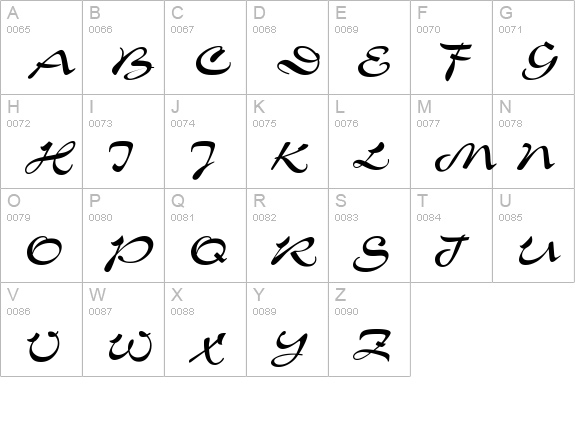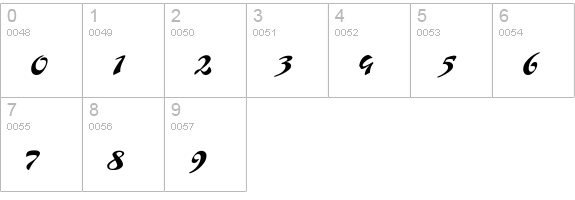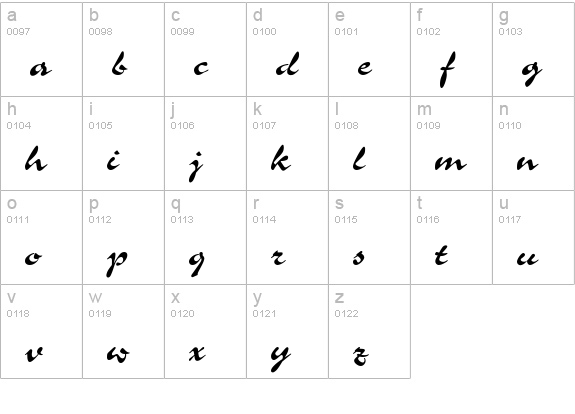
Corrida Font Details
Corrida font is a modern and stylish typeface that exudes elegance and sophistication. Its sleek lines and sharp angles make it perfect for a wide range of design projects, from branding to editorial layouts. Whether you're creating a sleek logo or designing a captivating poster, Corrida font will help you make a lasting impression. What's even better is that Corrida font is completely free to download at FontsMarket.com. This means you can access this stunning font without any cost, making it a valuable addition to your font collection. With its unique character and versatility, Corrida font is sure to elevate your design projects to the next level. Download it today and unleash your creativity with this exceptional typeface.